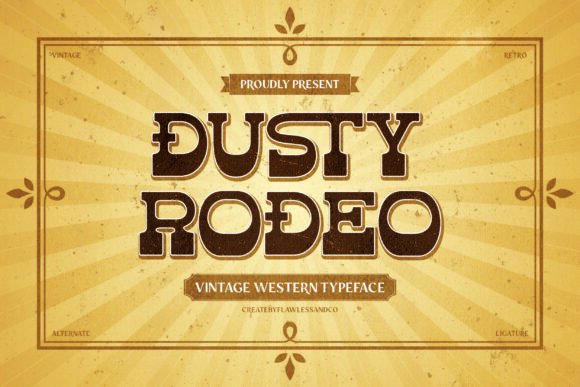
Dusty Rodeo Font: A Bold Western-Style Slab Serif Font
The Dusty Rodeo font is a bold, Western-style slab serif font that captures the rugged charm of the Wild West. Inspired by classic rodeo posters and cowboy culture, this typeface delivers strong, vintage character with sharp edges and an unmistakable Western flair. In this article, we’ll explore the features and benefits of the Dusty Rodeo font, and how it can be used to add a touch of rustic charm to your design projects.
What is Dusty Rodeo Font?
Dusty Rodeo is a bold, slab serif font that is inspired by the classic typography of the Wild West. The font features sharp, rugged edges and a distinctive Western flair, making it perfect for designs that require a strong, vintage character. The font is designed to evoke the spirit of the American West, with its bold lines, sharp serifs, and rustic charm.
Features of Dusty Rodeo Font
The Dusty Rodeo font features a range of characteristics that make it perfect for designs that require a bold, Western-style typography. Some of the key features of the font include:
- Bold, slab serif design: The font features a bold, slab serif design that is perfect for headlines and titles.
- Sharp, rugged edges: The font features sharp, rugged edges that give it a distinctive Western flair.
- Western-inspired characters: The font includes a range of Western-inspired characters, including letters, numbers, and punctuation marks.
- Vintage character: The font has a strong, vintage character that is perfect for designs that require a rustic, nostalgic feel.
Benefits of Using Dusty Rodeo Font
The Dusty Rodeo font offers a range of benefits for designers who need a bold, Western-style typography for their projects. Some of the key benefits of using the font include:
- Instant recognition: The font’s bold, slab serif design and sharp edges make it instantly recognizable as a Western-style font.
- Versatility: The font can be used for a wide range of design projects, from posters and flyers to logos and branding.
- Easy to read: Despite its bold design, the font is easy to read, even at small sizes.
- Unique character: The font’s vintage character and Western flair make it a unique and distinctive choice for designers.
How to Use Dusty Rodeo Font
The Dusty Rodeo font can be used for a wide range of design projects, from posters and flyers to logos and branding. Here are some tips for using the font effectively:
- Use it for headlines: The font’s bold design makes it perfect for headlines and titles.
- Pair it with a sans-serif font: Pairing the font with a sans-serif font can create a striking contrast and add visual interest to your design.
- Experiment with different colors: The font looks great in a range of colors, from bold and bright to muted and earthy.
- Use it for Western-themed designs: The font is perfect for Western-themed designs, such as posters, flyers, and logos.
Inspiration from Classic Rodeo Posters
The Dusty Rodeo font is inspired by classic rodeo posters, which are known for their bold typography and vibrant colors. The font’s designers drew inspiration from the classic posters of the American West, which often featured bold, slab serif fonts and striking graphics.
The font’s Western flair and vintage character make it perfect for designs that require a rustic, nostalgic feel. Whether you’re designing a poster for a rodeo event or a logo for a Western-themed business, the Dusty Rodeo font is a great choice.
Cowboy Culture and the American West
The Dusty Rodeo font is deeply rooted in cowboy culture and the American West. The font’s designers drew inspiration from the rugged landscape and rich history of the American West, which is known for its cowboys, rodeos, and Wild West towns.
The font’s Western flair and vintage character make it perfect for designs that require a strong, rustic feel. Whether you’re designing a logo for a Western-themed business or a poster for a rodeo event, the Dusty Rodeo font is a great choice.
The Dusty Rodeo font is a bold, Western-style slab serif font that captures the rugged charm of the Wild West. Inspired by classic rodeo posters and cowboy culture, this typeface delivers strong, vintage character with sharp edges and an unmistakable Western flair.
Whether you’re designing a poster, logo, or branding materials, the Dusty Rodeo font is a great choice. Its bold design, versatility, and easy readability make it perfect for a wide range of design projects.
- What is the Dusty Rodeo font?: The Dusty Rodeo font is a bold, Western-style slab serif font that captures the rugged charm of the Wild West.
- What inspired the Dusty Rodeo font?: The font was inspired by classic rodeo posters and cowboy culture.
- What are the key features of the Dusty Rodeo font?: The font features a bold, slab serif design, sharp edges, and a distinctive Western flair.
- How can I use the Dusty Rodeo font?: The font can be used for a wide range of design projects, from posters and flyers to logos and branding.